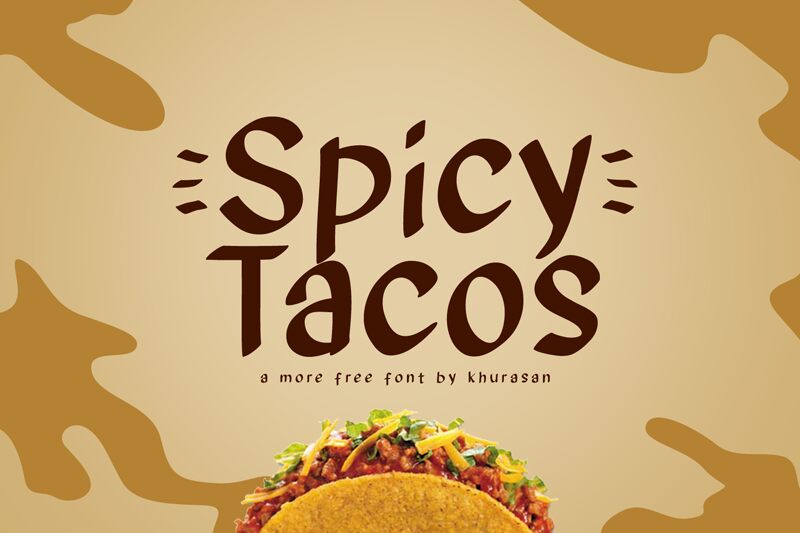
Spicy Tacos
Spicy Tacos, a delightful creation by Khurasan, is a display font that brings a playful touch to any project.
With its comic style, this font is perfect for children's books, greeting cards, and party invitations. Its bold and expressive characters add fun and personality to designs for food blogs, restaurant menus, or even quirky fashion brands. Whether you're designing for print or digital media, Spicy Tacos will surely spice up your creations with its unique charm.